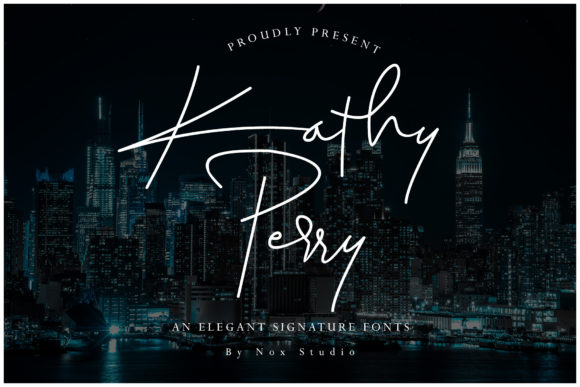
Step into a world of elegance and charm with Kathy Perry Font, a delightful script font family crafted by Nox Studio. Designed to captivate hearts and elevate your creative expressions, Kathy Perry Font is the epitome of sophistication and timeless beauty.
With its graceful curves and enchanting swashes, Kathy Perry Font weaves a spell of allure and magnetism, leaving an indelible mark on every design it adorns. Whether you're a seasoned designer seeking the perfect font for your next masterpiece or a passionate hobbyist yearning to add a touch of elegance to your projects, Kathy Perry Font is the answer to your creative prayers.
Indulge in the versatility of Kathy Perry Font, seamlessly adaptable to a myriad of design endeavors. Its inherent charm shines through in logos, branding, and quotes, adding a touch of refinement and exclusivity that sets your creations apart. Unleash your imagination and explore the endless possibilities that await with Kathy Perry Font.
Embrace the power of Kathy Perry Font and elevate your designs to new heights of artistry. Its PUA encoding grants you effortless access to a treasure trove of glyphs and swashes, empowering you to unleash your creativity and weave intricate masterpieces that speak volumes.
Kathy Perry Font is more than just a font; it's an artistic journey waiting to be embarked upon. Let your imagination soar as you craft exquisite designs that resonate with beauty and grace, leaving a lasting impression on all who behold them. Experience the transformative power of Kathy Perry Font today and unlock a world of endless creative possibilities.